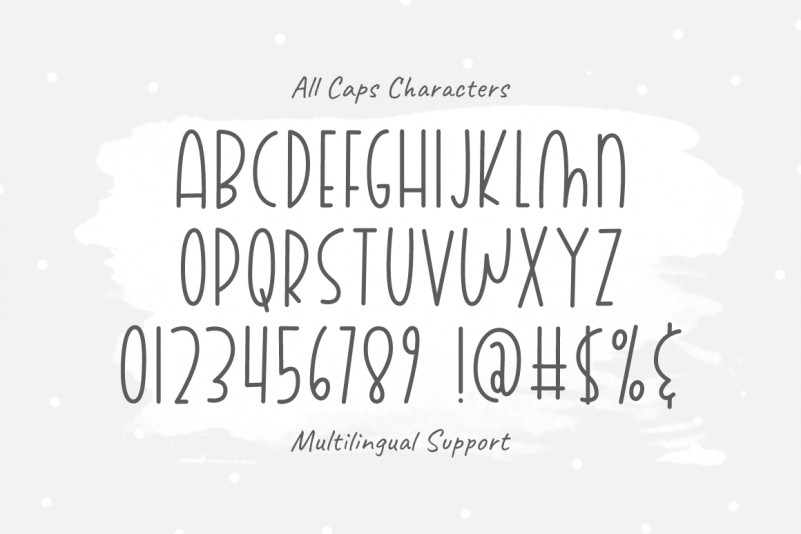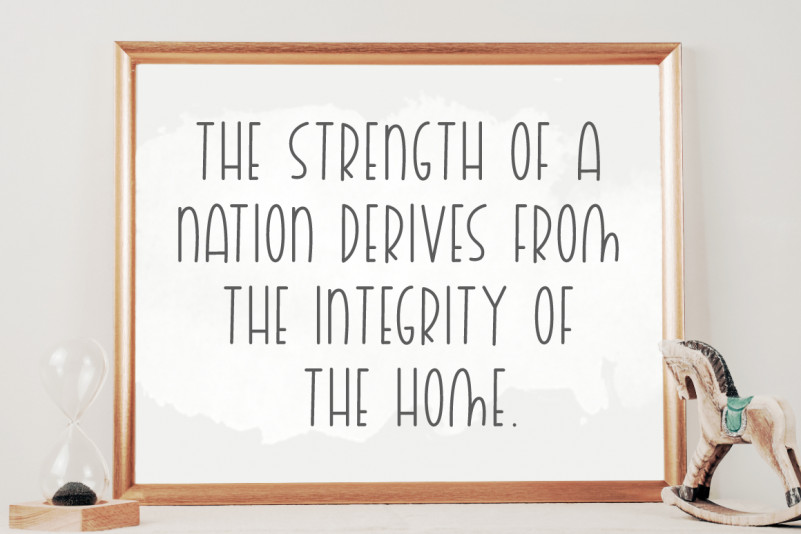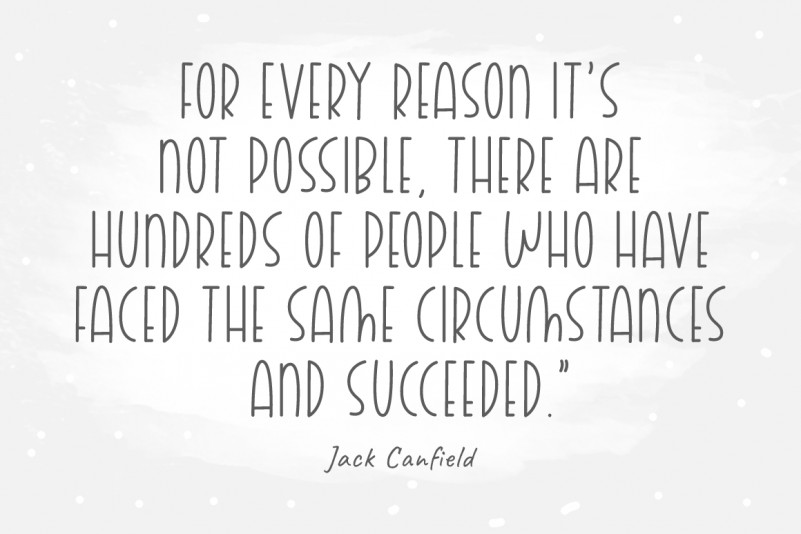
Calderock Font
Calderock Display Font
This is a monoline style, tall and skinny letters which makes it easy to read. This font looks awesome for quotes, branding, T-shirt, website, blogs, children’s designs, svg designs, logos and more